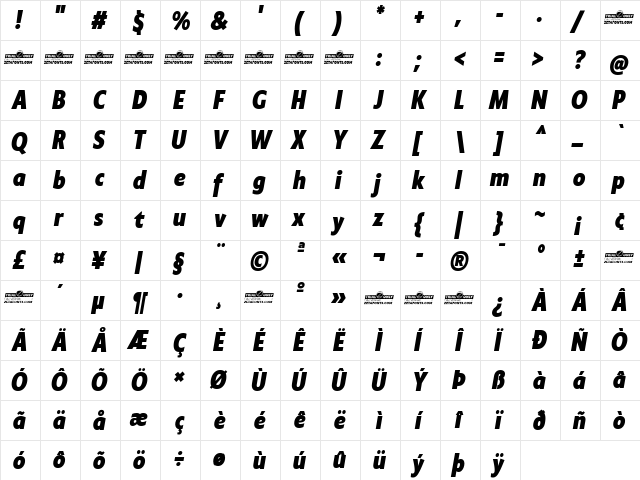
Klein Condensed Trial Extrabold Italic
Extrabold Italic · Cosimo Lorenzo Pancini & Francesco Canovaro Cosimo Lorenzo Pancini & Francesco Canovaro ·
DesignerCosimo Lorenzo Pancini & Francesco Canovaro
Design Context for Klein Condensed Trial Typeface
Klein Condensed Trial offers clean, dependable letterforms without strong stylistic allegiance, making it a practical choice for designers who need flexibility. Its italic angle brings a sense of urgency and motion to the letterforms. The heavy weight commands attention and anchors typographic hierarchies. The condensed width makes it efficient for tight spaces without sacrificing legibility.
Pro Tip: Use Klein Condensed Trial for emphasis, pull quotes, and subheadings where its slanted energy can add rhythm to the layout.